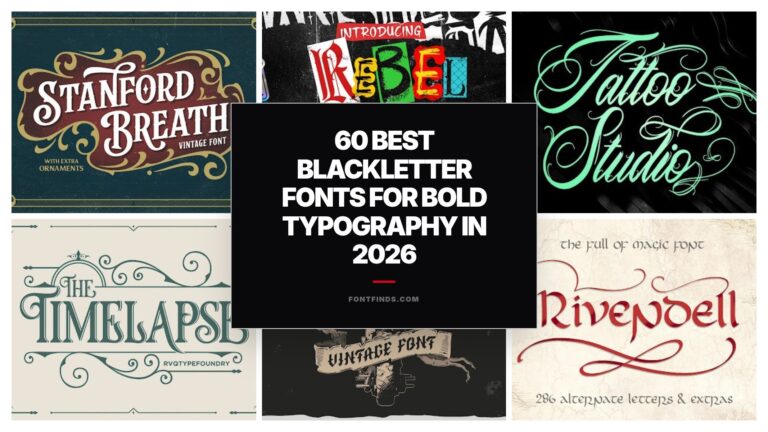
18 Striking Blackletter Fonts for Metal and Tattoo Designs
A practical collection of 18 blackletter fonts, with real-use guidance, pairing advice and production checks for every featured typeface.
Looking to add a gothic or vintage vibe to your next design project? We have rounded up 60 top-tier blackletter fonts that will give your branding, apparel, and editorial layouts a massive upgrade this year.